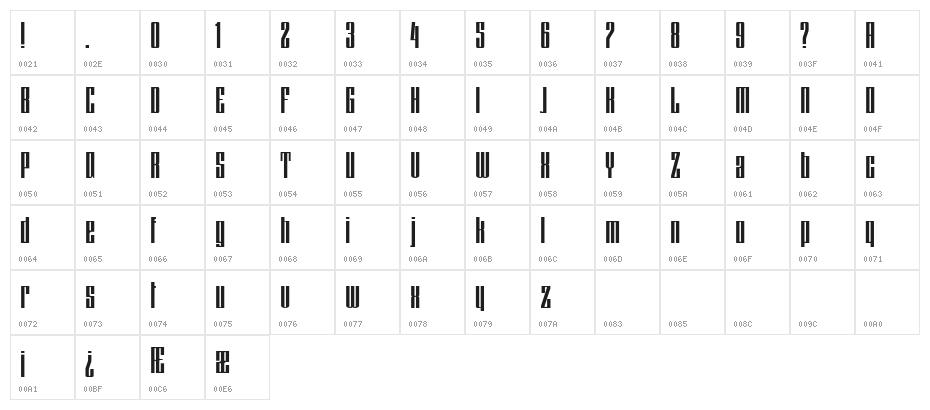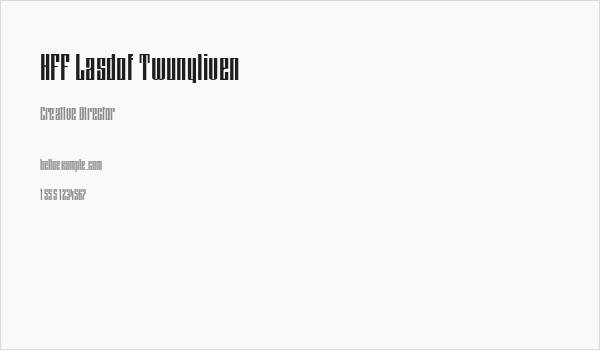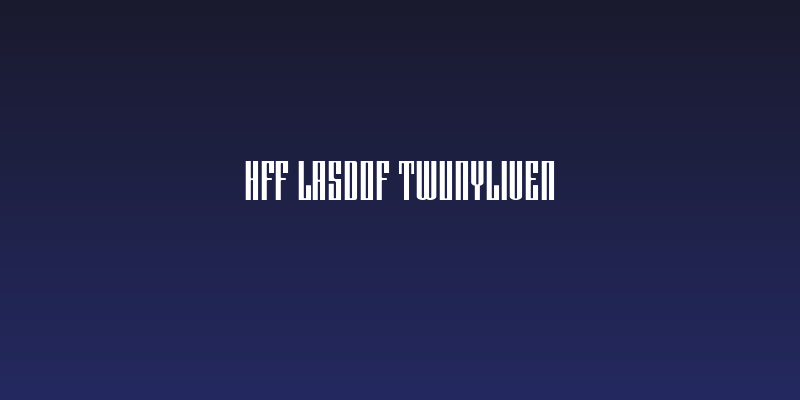
HFF Lasdof Twunyliven Font
HFF Lasdof Twunyliven Description
This font features a bold and striking design with tall, narrow characters that create a strong visual impact. The uppercase and lowercase letters maintain a consistent height, contributing to a uniform appearance. The geometric shapes and sharp angles give it a modern and edgy feel. The numbers and special characters are designed to match the overall aesthetic, ensuring a cohesive look across all elements. The font's unique style makes it ideal for projects that require a bold statement or a contemporary touch.
| Proposed Projects | Ideal for posters, headlines, branding, and any design needing a bold, modern look. |